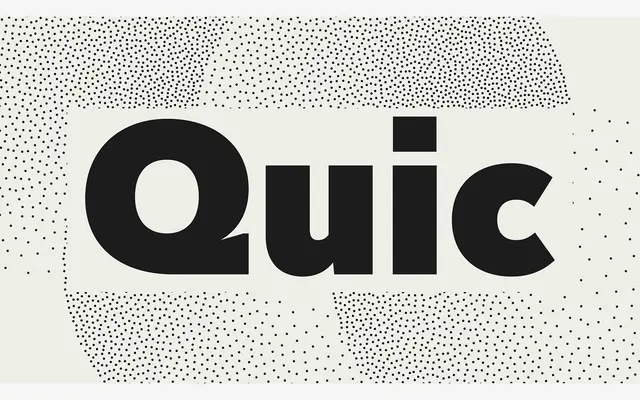
A geometric sans with cursive-influenced letterforms in characters like 'a', 'b' and 'g', offering eight weights with matching italics and broad Latin coverage.
The construction is geometric at its core, but individual characters draw from fluid, rapid strokes associated with cursive handwriting and expressive brushwork. This gives the family a lightness and clarity that sets it apart from more rigidly constructed geometric sans designs. Eight weights with matching italics make it versatile for editorial and identity work where a touch of personality is wanted without sacrificing legibility.
Built on geometric forms but with humanist inflections in characters like 'a', 'b' and 'g' that reference cursive and brushwork, placing it squarely in the geometric sans genre with a hybrid character.